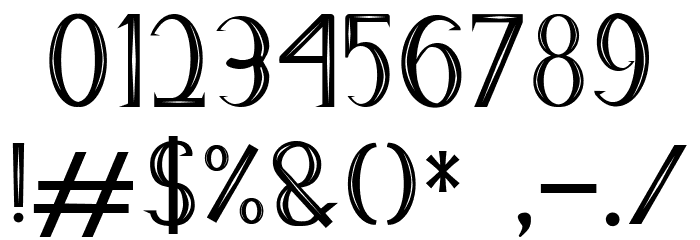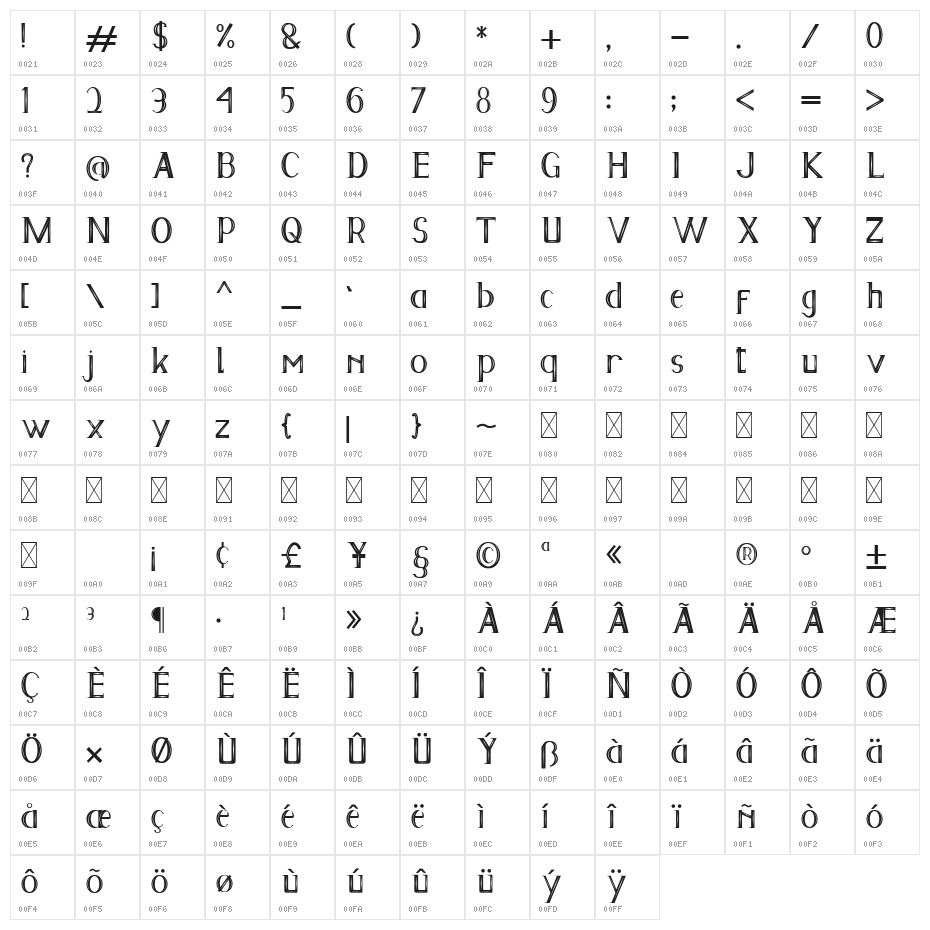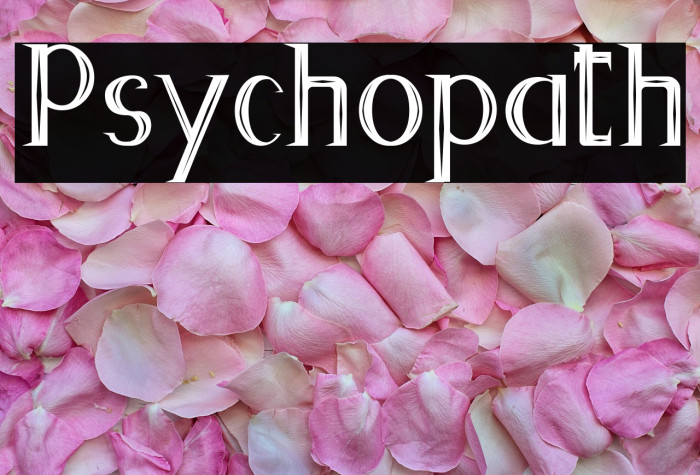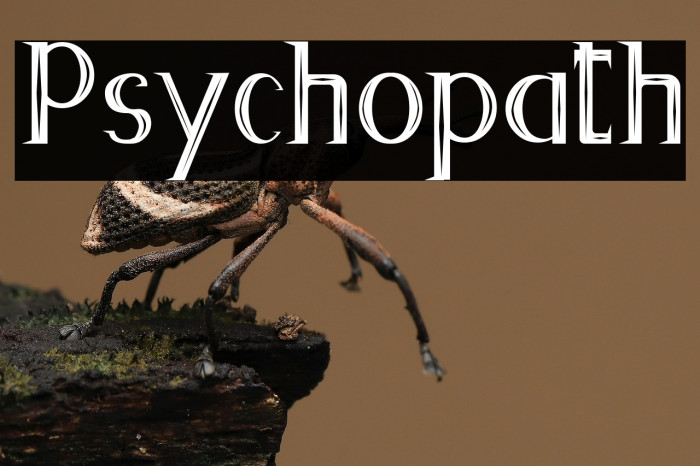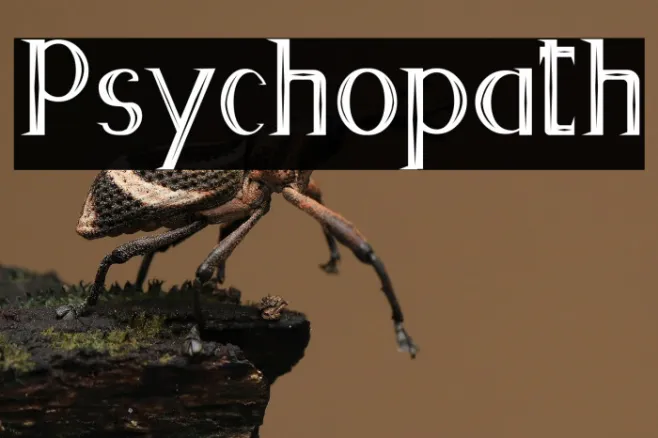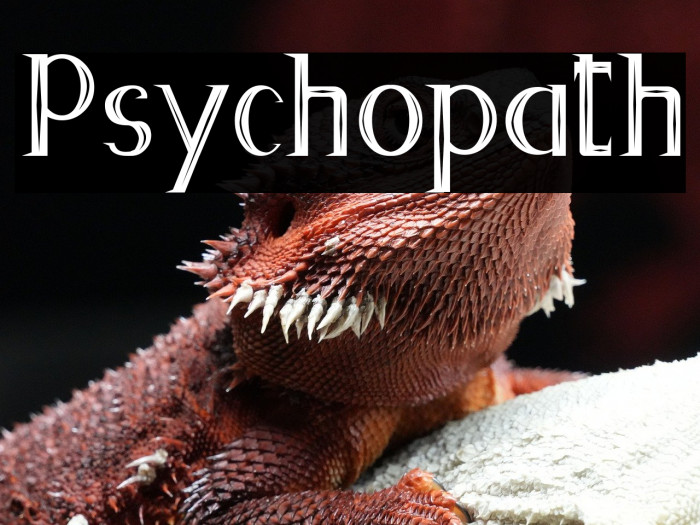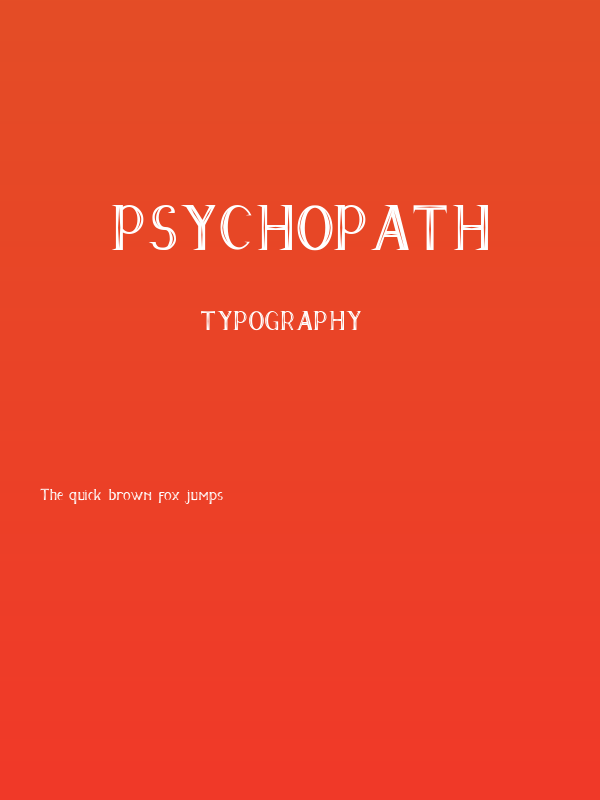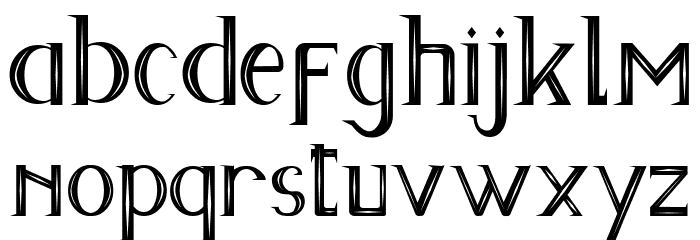
Psychopath Font
Psychopath Description
This font features a bold and striking design with sharp, angular lines and a distinct art deco influence. The uppercase letters are tall and narrow, with unique geometric elements that give them a sophisticated and modern appearance. The lowercase letters maintain a consistent style, with some characters featuring elongated tails and others showcasing sharp, pointed edges. The numerals are equally bold, with a consistent height and width that complements the overall design. Special characters are creatively integrated, maintaining the font's cohesive aesthetic. This font's high contrast between thick and thin strokes adds to its dramatic and eye-catching appeal.